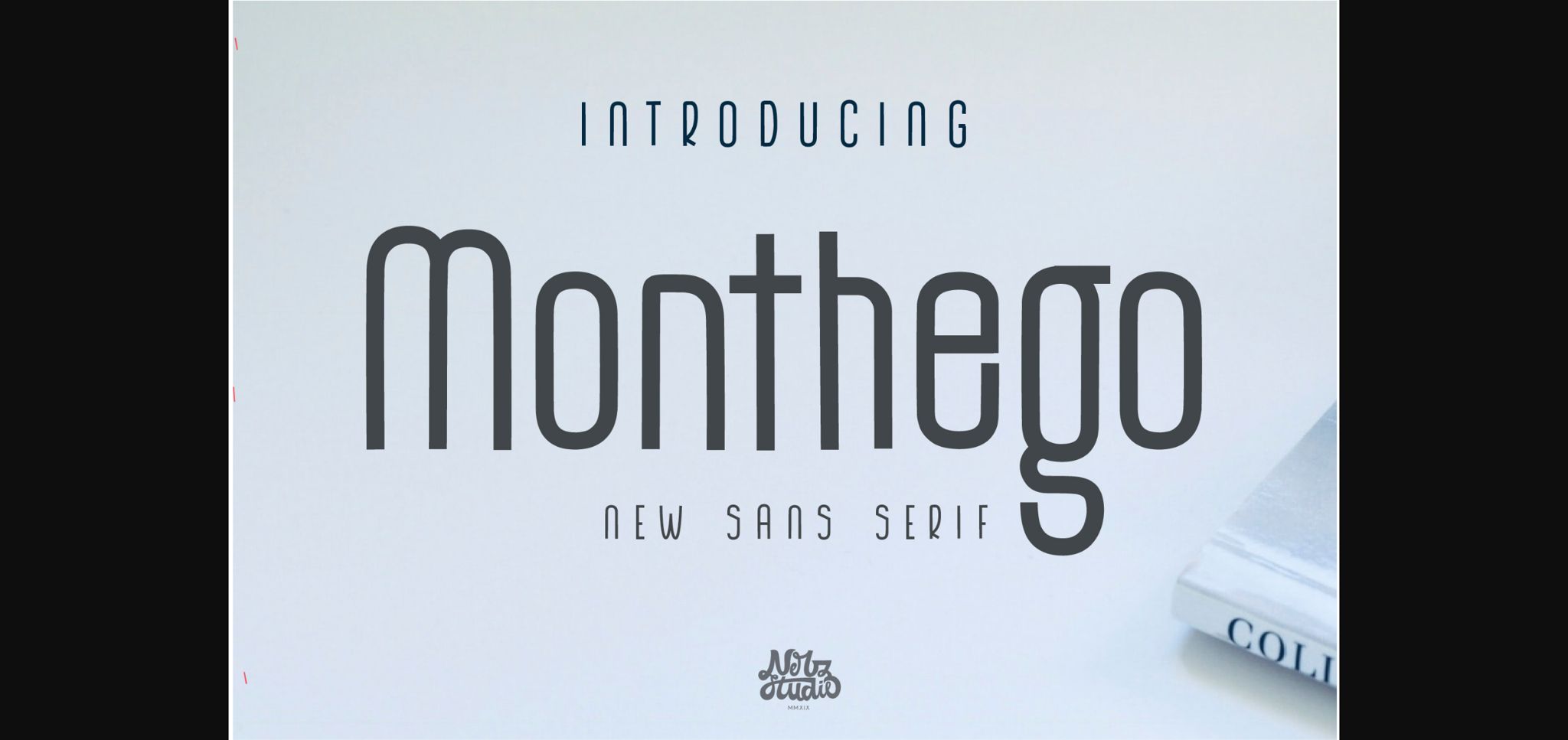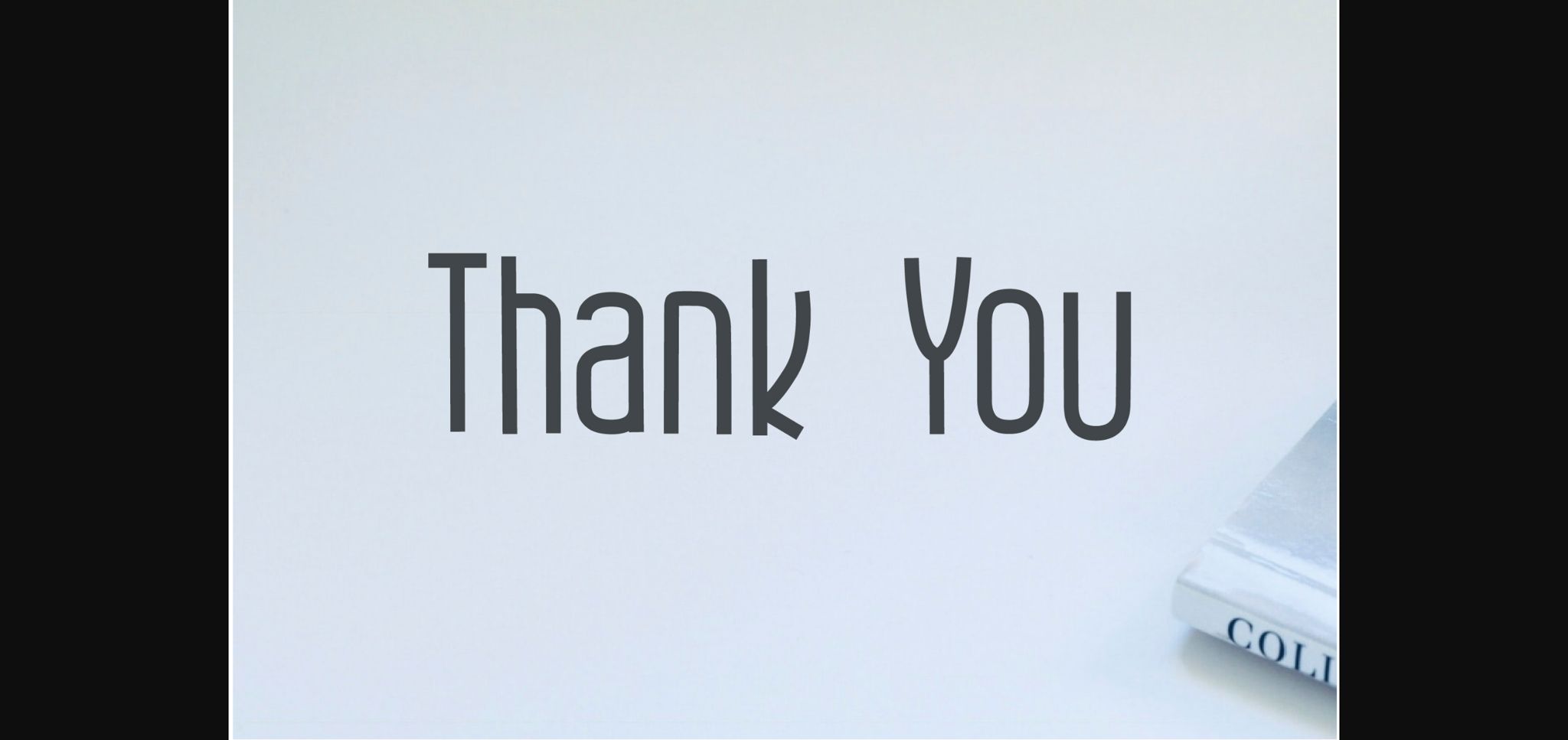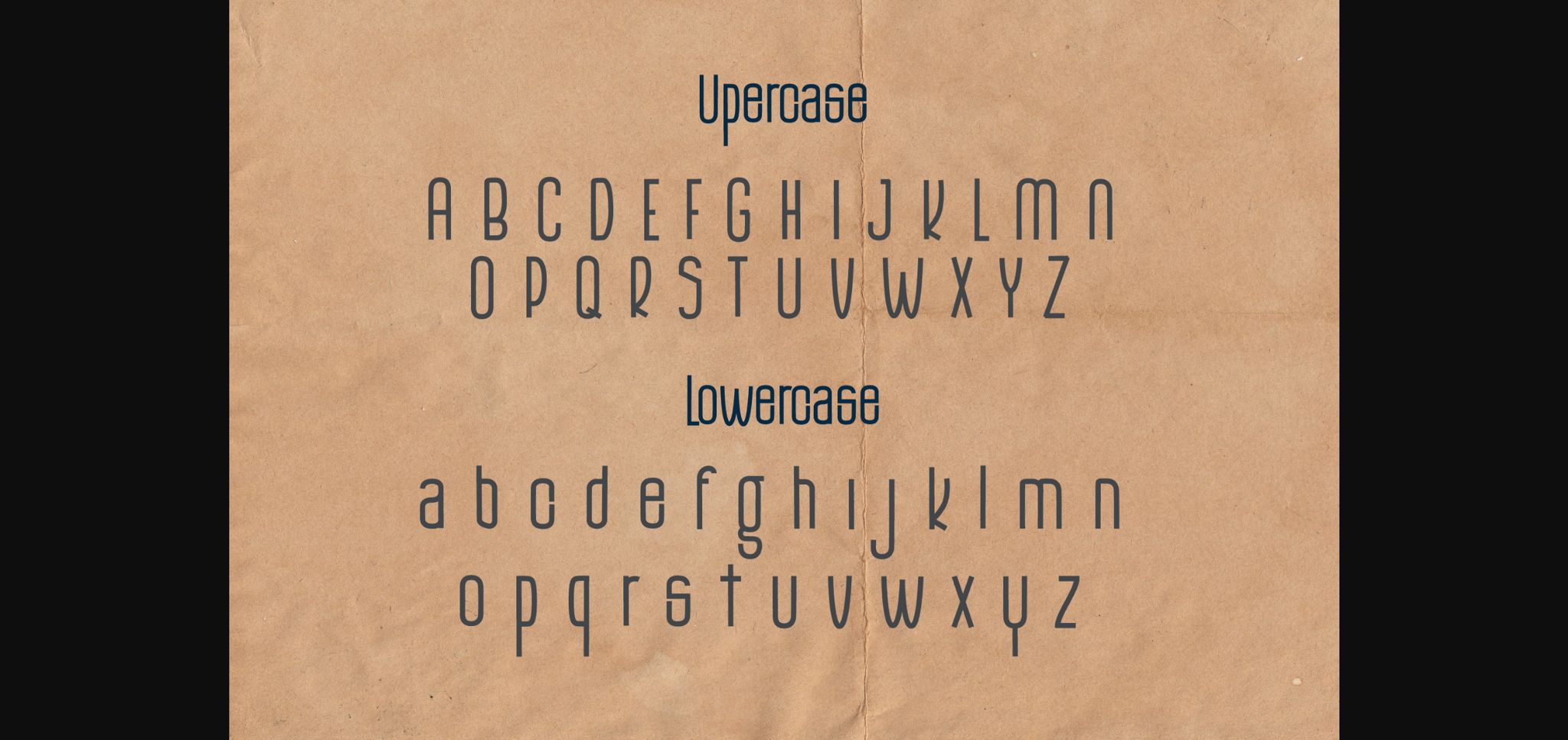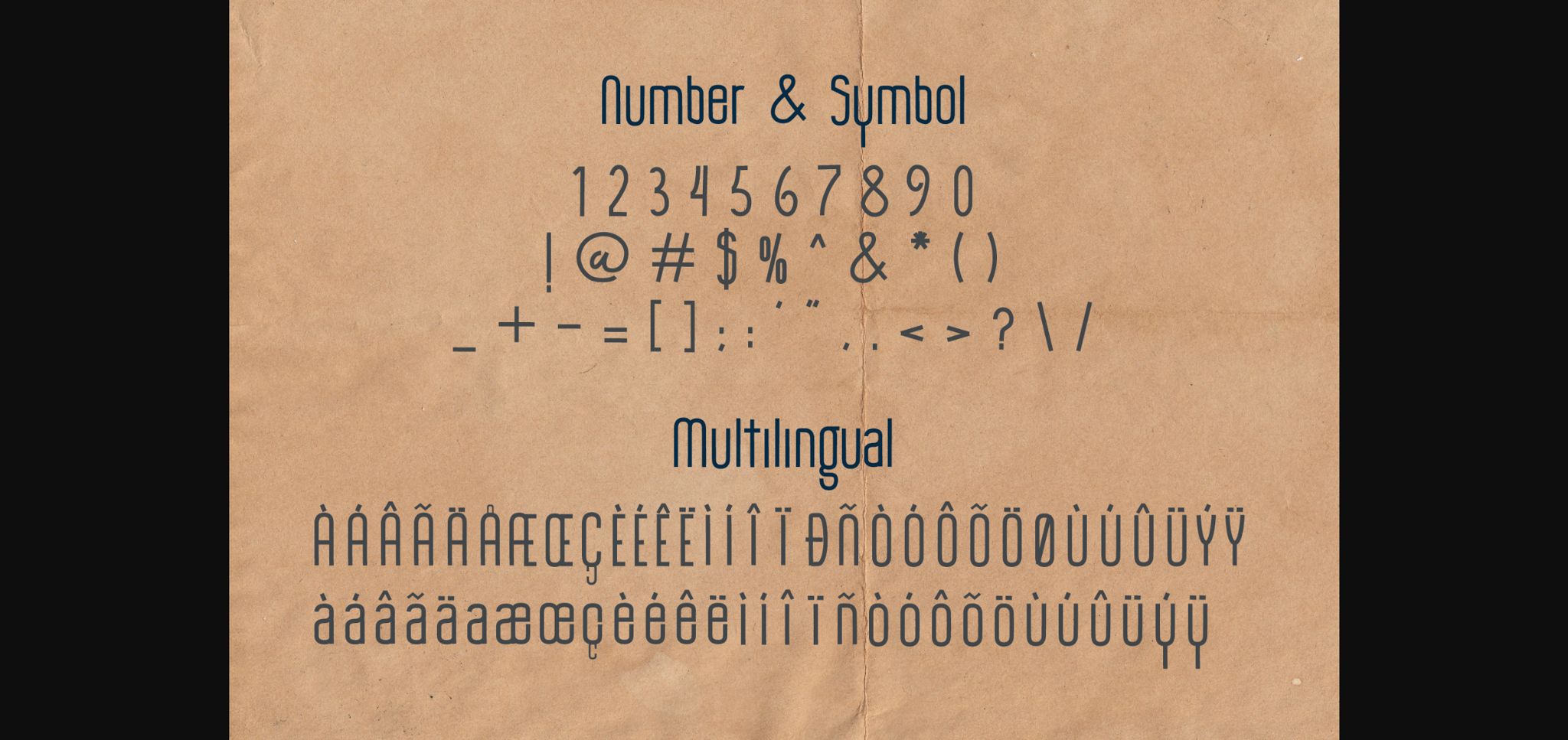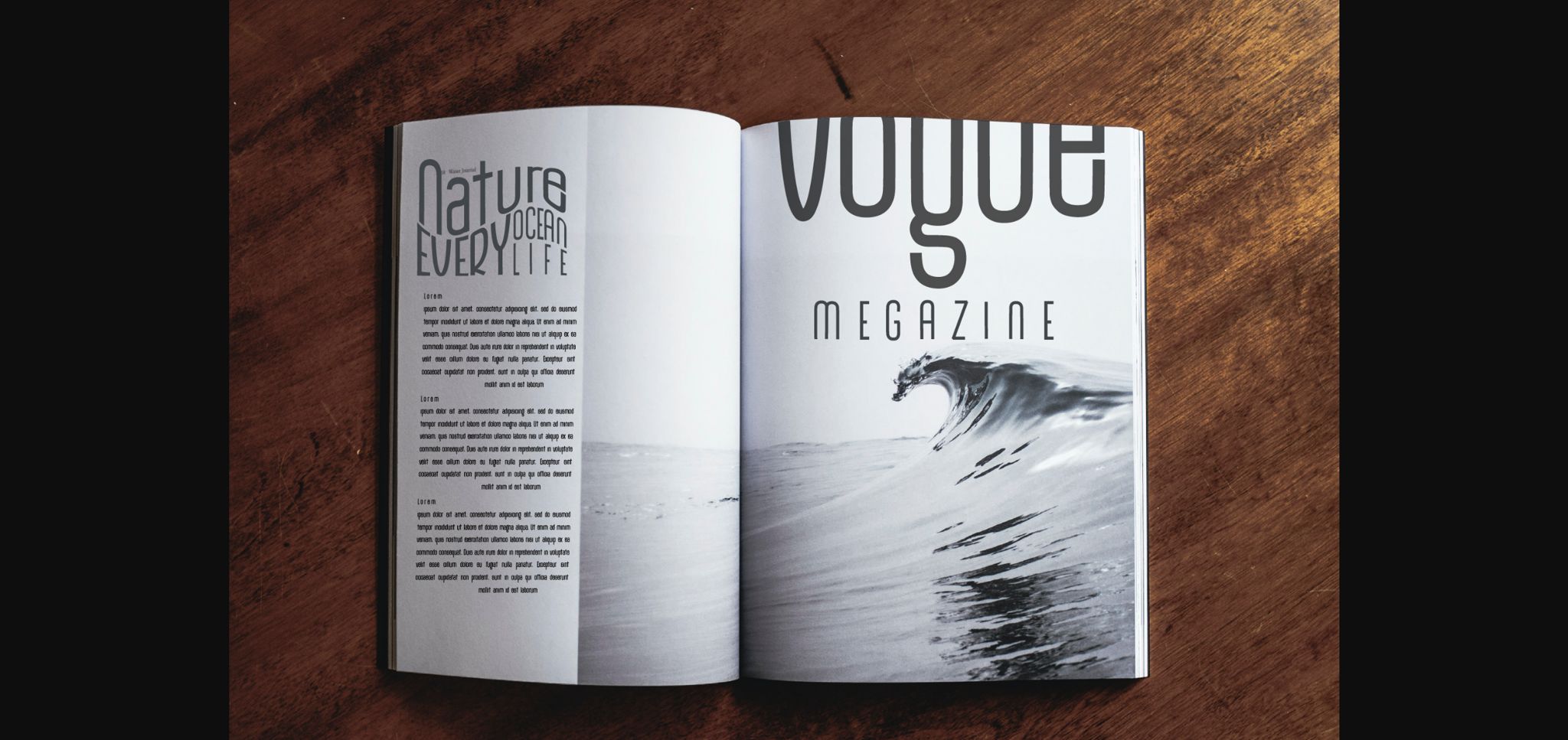
The Monthego Font
About The Monthego Font
The Monthego is a neat and modern sans serif font. Not too thin and not too thick, balanced and varied, this font was designed to enhance the beauty of your projects.